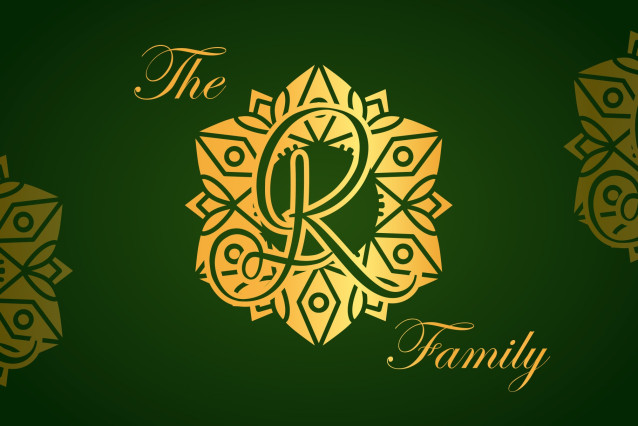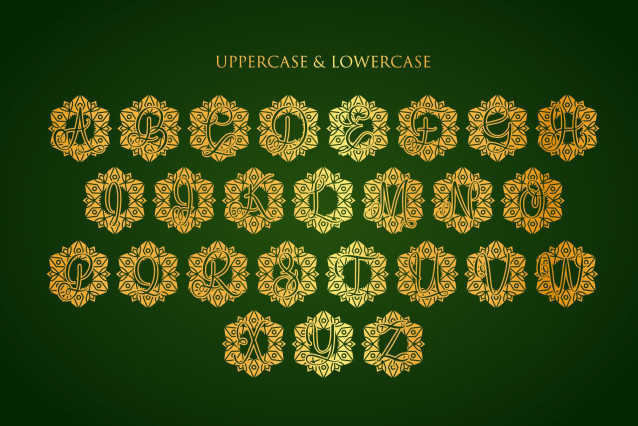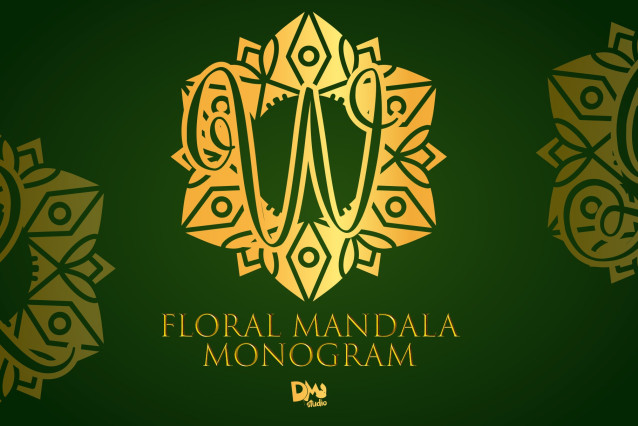
Floral Mandala Monogram Font
Floral Mandala Monogram is a charming monogram font that blends graceful floral elements with intricate mandala designs. Inspired by the beauty of nature and ornamental artistry, this font is perfect for wedding invitations, botanical branding, handmade product packaging, personalized gifts, and nature-themed designs. Its blooming elegance and detailed craftsmanship add a refreshing and timeless touch to any creative project.